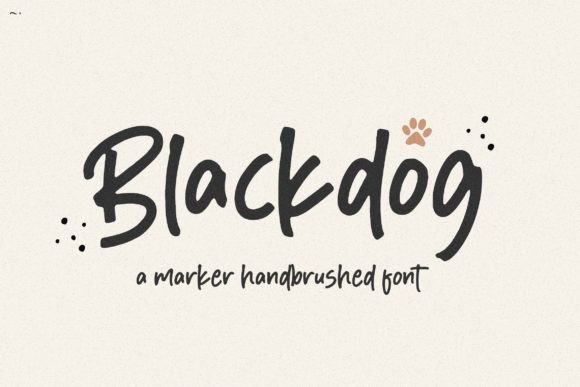
In the realm of typography, where letters dance and stories unfold, there exists a font that captivates the heart with its playful spirit and enchanting charm - Blackdog, a script font born from the creative genius of Aestherica Studio.
Immerse yourself in the world of Blackdog, where whimsical strokes intertwine, creating a visual symphony that dances across the page. Its characters burst with personality, each letter a unique expression of joy and exuberance.
With Blackdog as your design companion, transform ordinary words into extraordinary art. Picture wedding invitations adorned with Blackdog's enchanting script, their edges adorned with delicate flourishes that whisper tales of love and forever. Or envision posters and flyers that come alive with Blackdog's exuberant energy, captivating audiences with their playful charm.
Blackdog's versatility extends beyond the realm of weddings. Its lively spirit adds a touch of whimsy to branding projects, injecting a sense of fun and approachability into logos, business cards, and marketing materials. Unleash your creativity and explore the endless possibilities that await with Blackdog as your artistic partner.
And as you weave your design magic with Blackdog, know that you're not just creating beautiful visuals; you're crafting a connection, a bond between your audience and your message. For in the strokes of Blackdog, there lies an irresistible charm that draws people in, captivating their hearts and leaving a lasting impression.
Whether you're a seasoned designer seeking to expand your creative horizons or a budding entrepreneur eager to make a statement, Blackdog awaits you, ready to ignite your imagination and transform your designs into masterpieces that resonate with your audience.
Embrace the magic of Blackdog, and let your creativity soar to new heights!